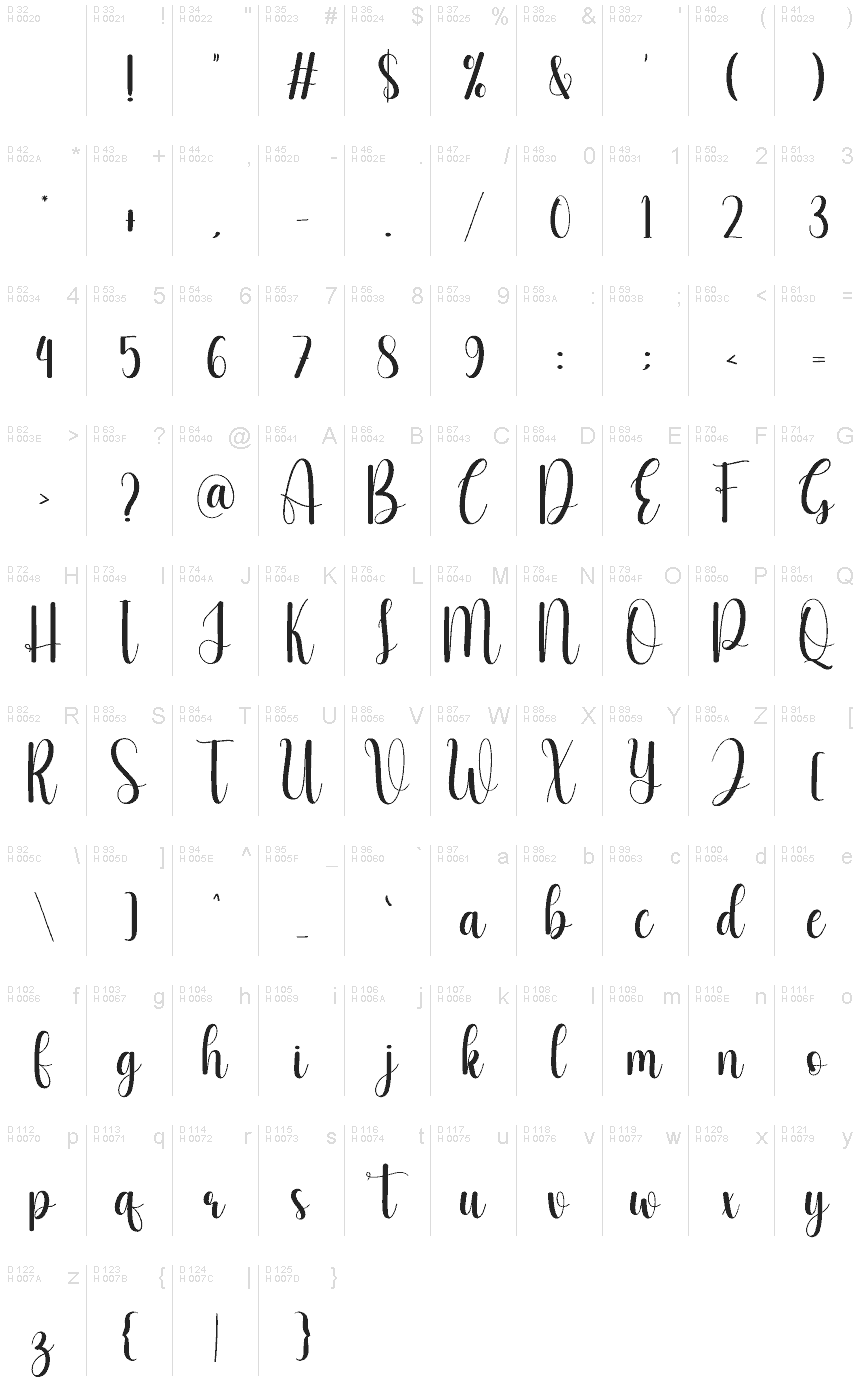
Anymore
Anymore font is a condensed calligraphy creation by Scratchones. This flowing and expressive script makes for an elegant, contemporary presence with each type character. It’s all in the details as it combines neat hand-lettering styles, refined lines, and graceful curves in every letter it holds.
This free calligraphy font is perfect for fashion brands, editorial magazine layouts, logo designs, storybooks titles, wedding invitations, signature texts products packaging designs and so much more. Enjoy using Anymore even with labels on cosmetics or food packaging where every word can make a huge impact!